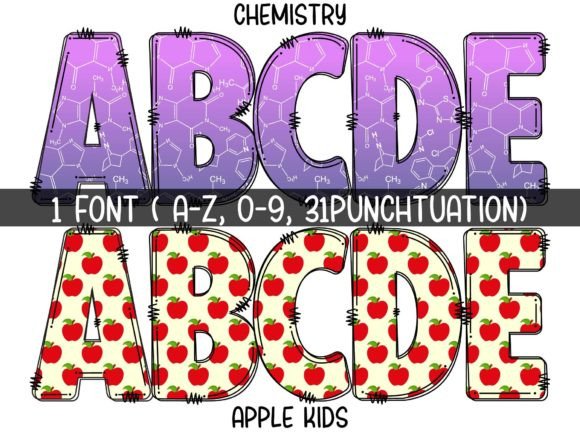
Apple Kids Font FREE Font Download
The Magic of Apple Kids Font: A Designer’s New Best Friend
I still remember the time I was working on a children’s activity book project, and I was struggling to find the perfect font. The client wanted something fun, playful, and engaging, but also easy to read. I tried font after font, but nothing seemed to fit the bill. That’s when I stumbled upon Apple Kids Font, and it was love at first sight! 💕
Apple Kids is a cute and fun color font that embodies playfulness and authenticity. It’s the perfect choice for any children’s activity or school project. With its chunky letters and vibrant colors, it’s sure to make your designs come alive.
What I Love About Apple Kids Font ✨
• ✅ Playful and Fun: Apple Kids Font is perfect for designs that require a playful touch. It’s great for children’s books, activity sheets, and even greeting cards.
• ✅ Easy to Read: Despite its chunky letters, Apple Kids Font is surprisingly easy to read, making it perfect for body text.
• ✅ Colorful: The font comes in a range of colors, which can add a pop of fun to your designs.
• ✅ OpenType Features: Apple Kids Font supports OpenType features, which means you can access a range of glyphs and stylistic alternates to customize your text.
• ⚠️ Limited Use Cases: While Apple Kids Font is perfect for children’s designs, it may not be the best choice for more formal or corporate projects.
• ⚠️ Not Suitable for Small Text: Due to its chunky letters, Apple Kids Font may not be the best choice for small text sizes.
The Designer Inspiration Behind Apple Kids Font
Apple Kids Font was designed with one goal in mind: to create a font that’s fun, playful, and engaging. The designer wanted to create a font that would make children’s designs come alive, and I think they succeeded! 🎉
The font’s chunky letters and vibrant colors are inspired by the world of children’s books and toys. The designer wanted to create a font that’s perfect for activity sheets, coloring books, and other fun projects.